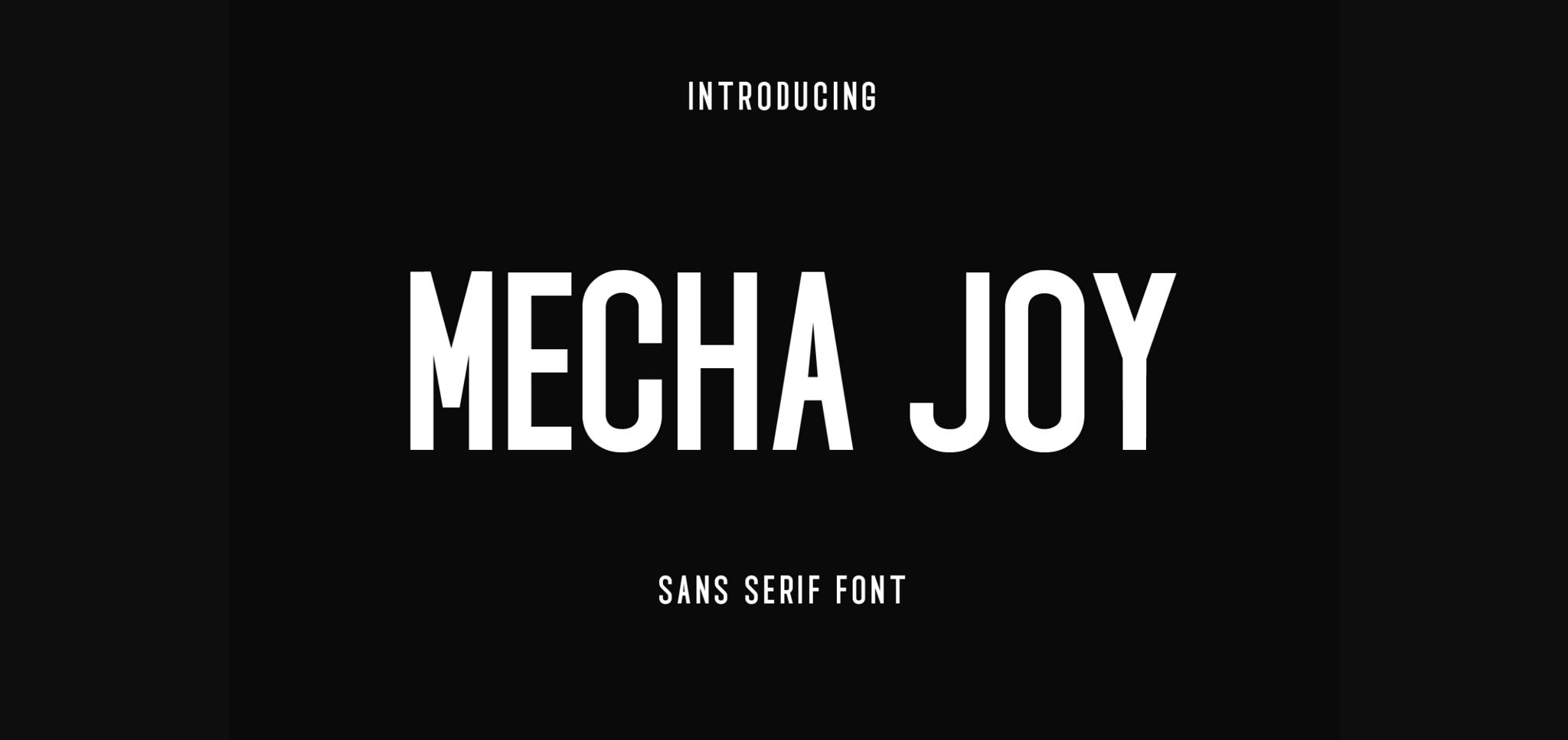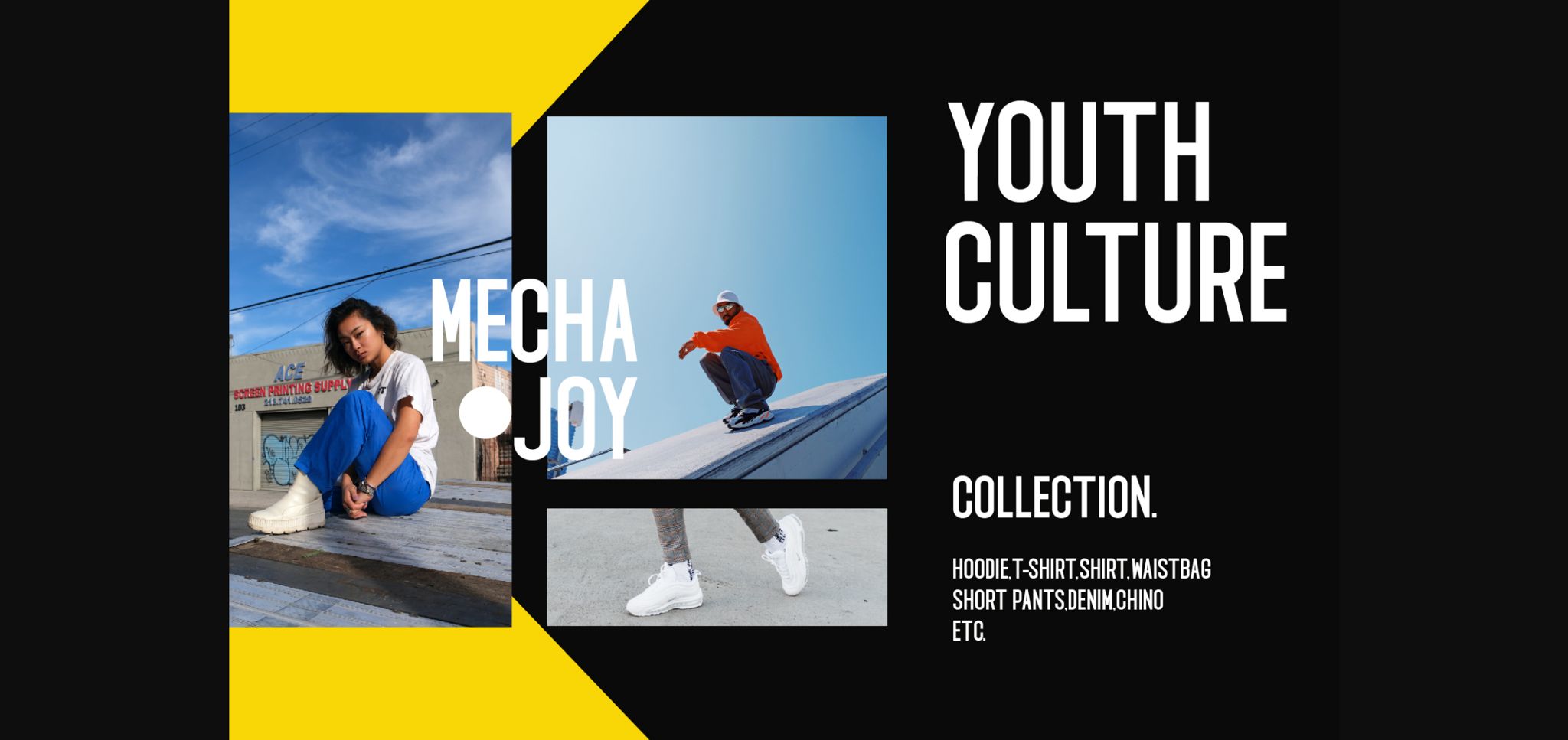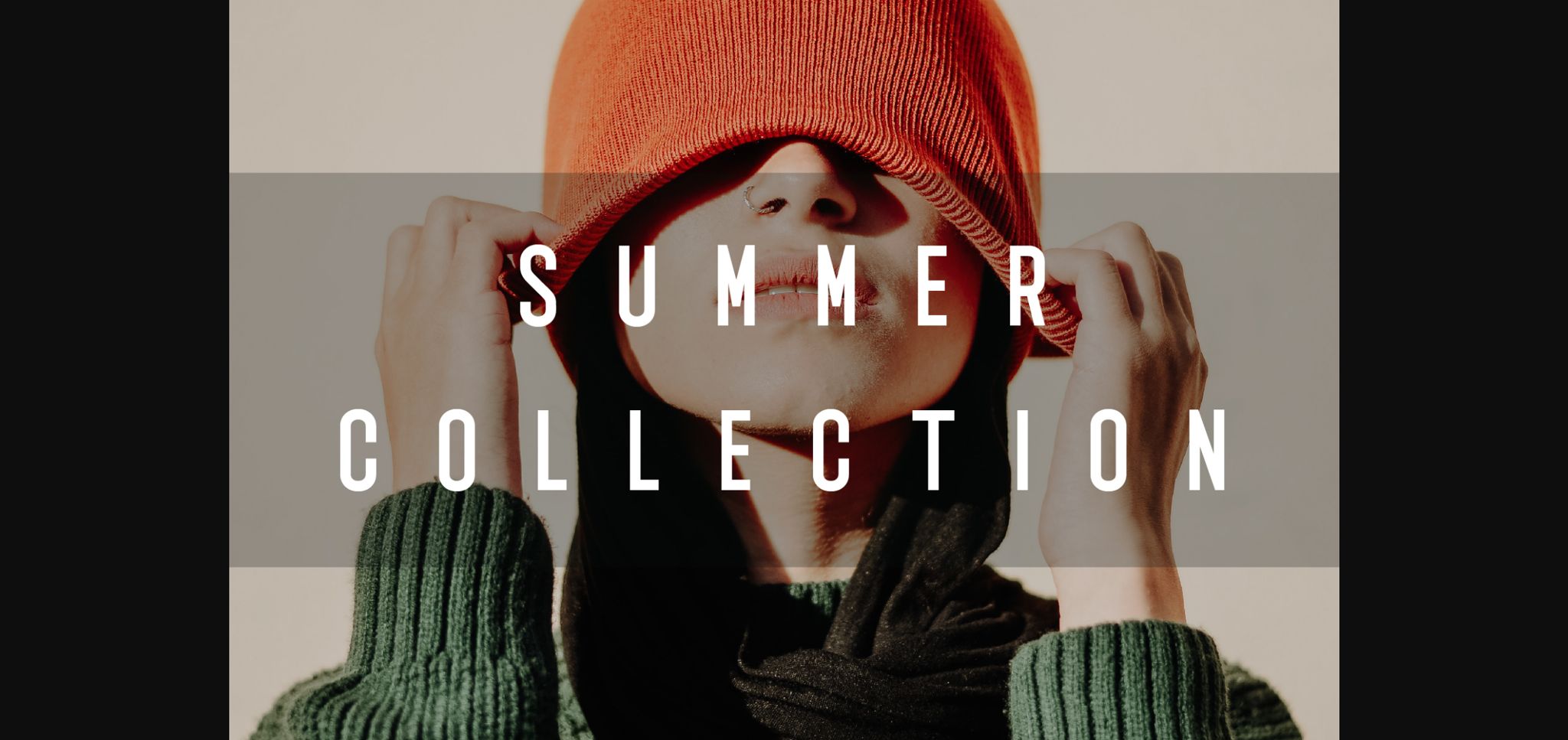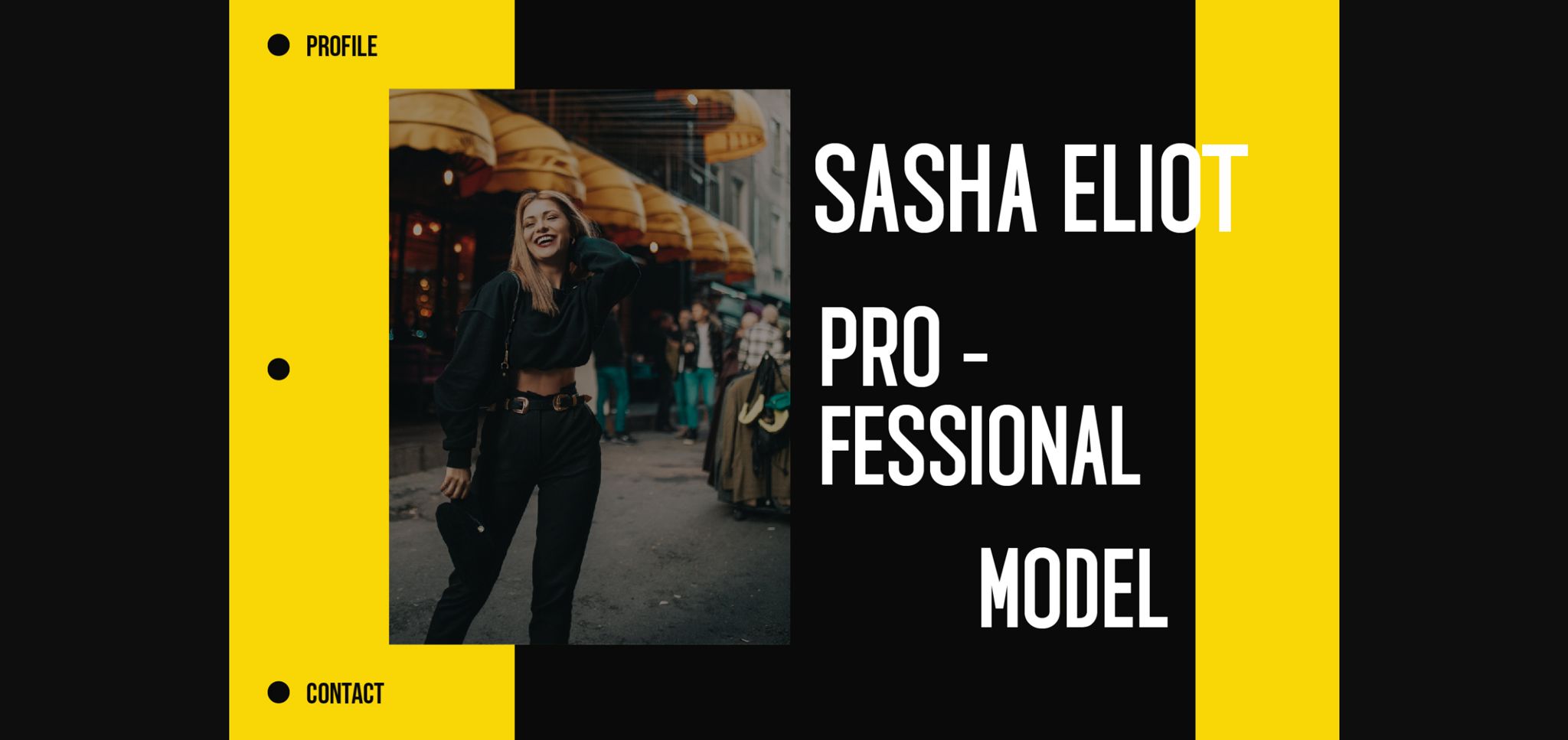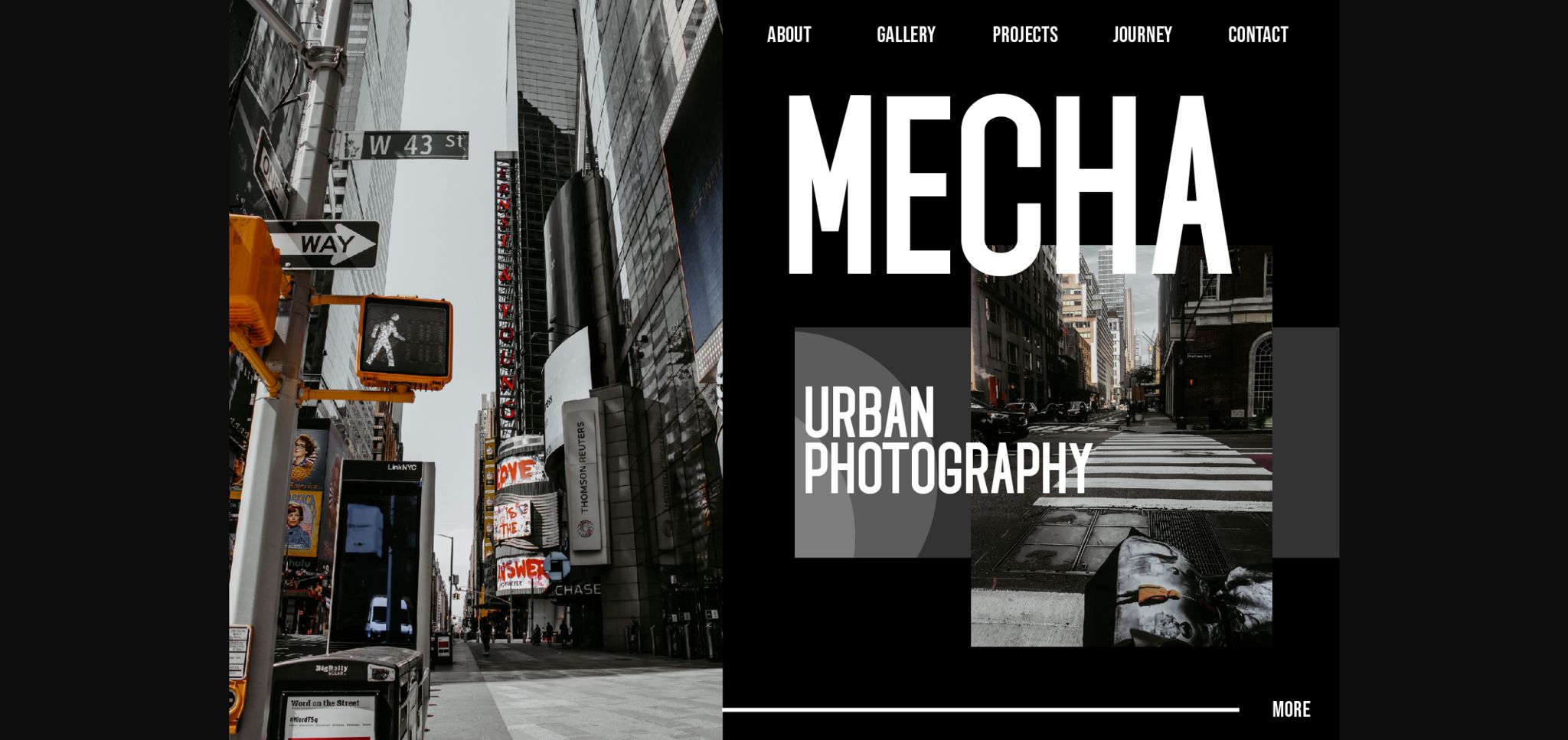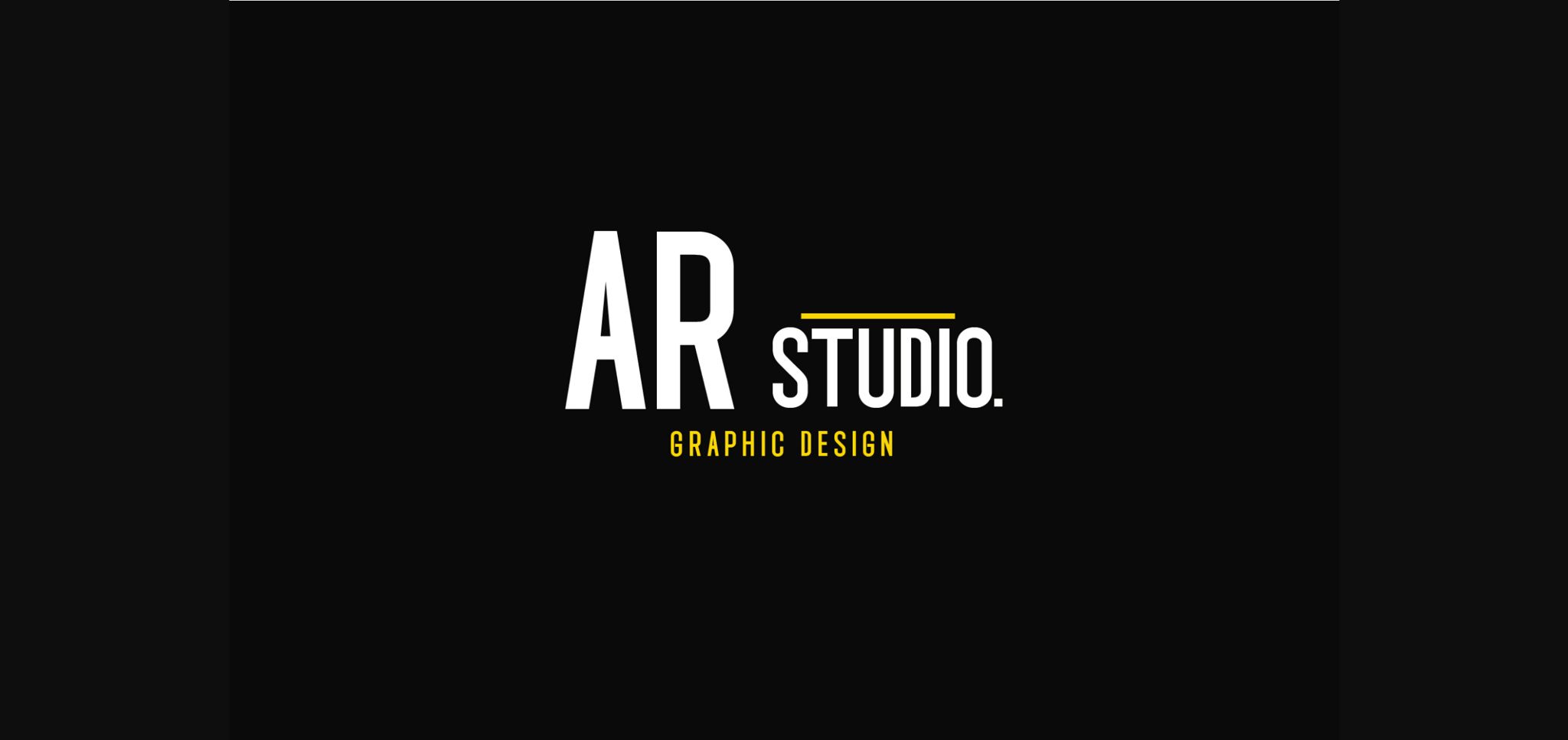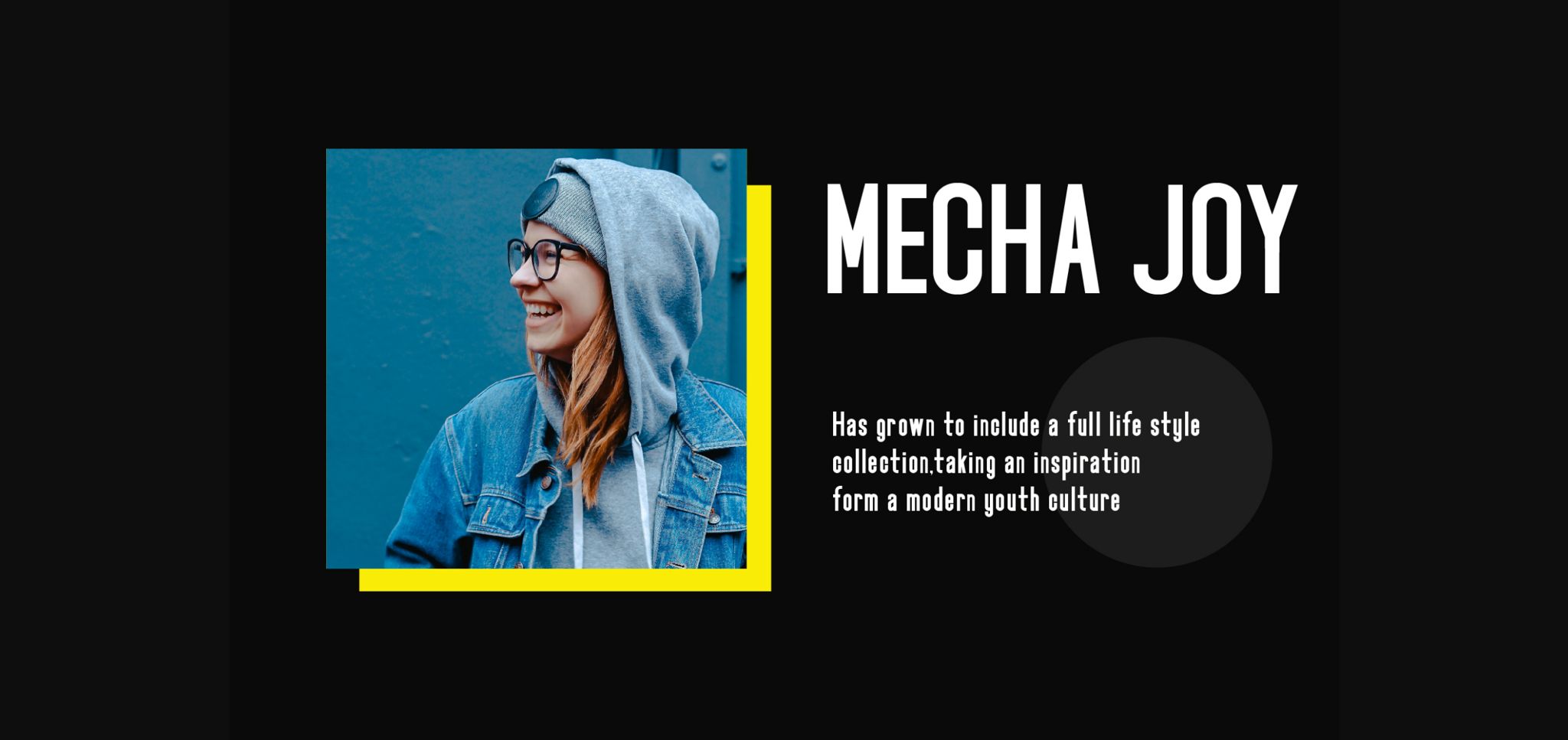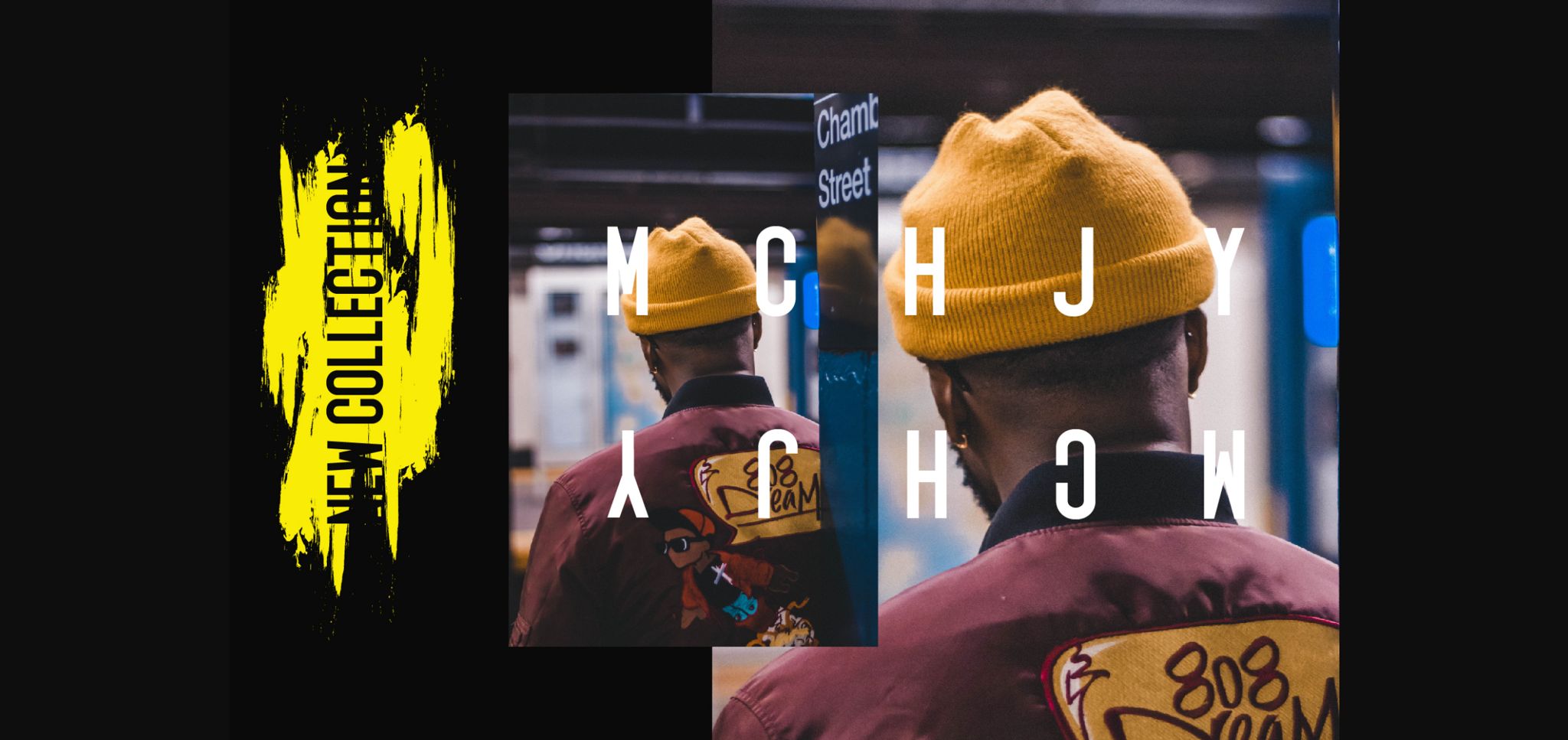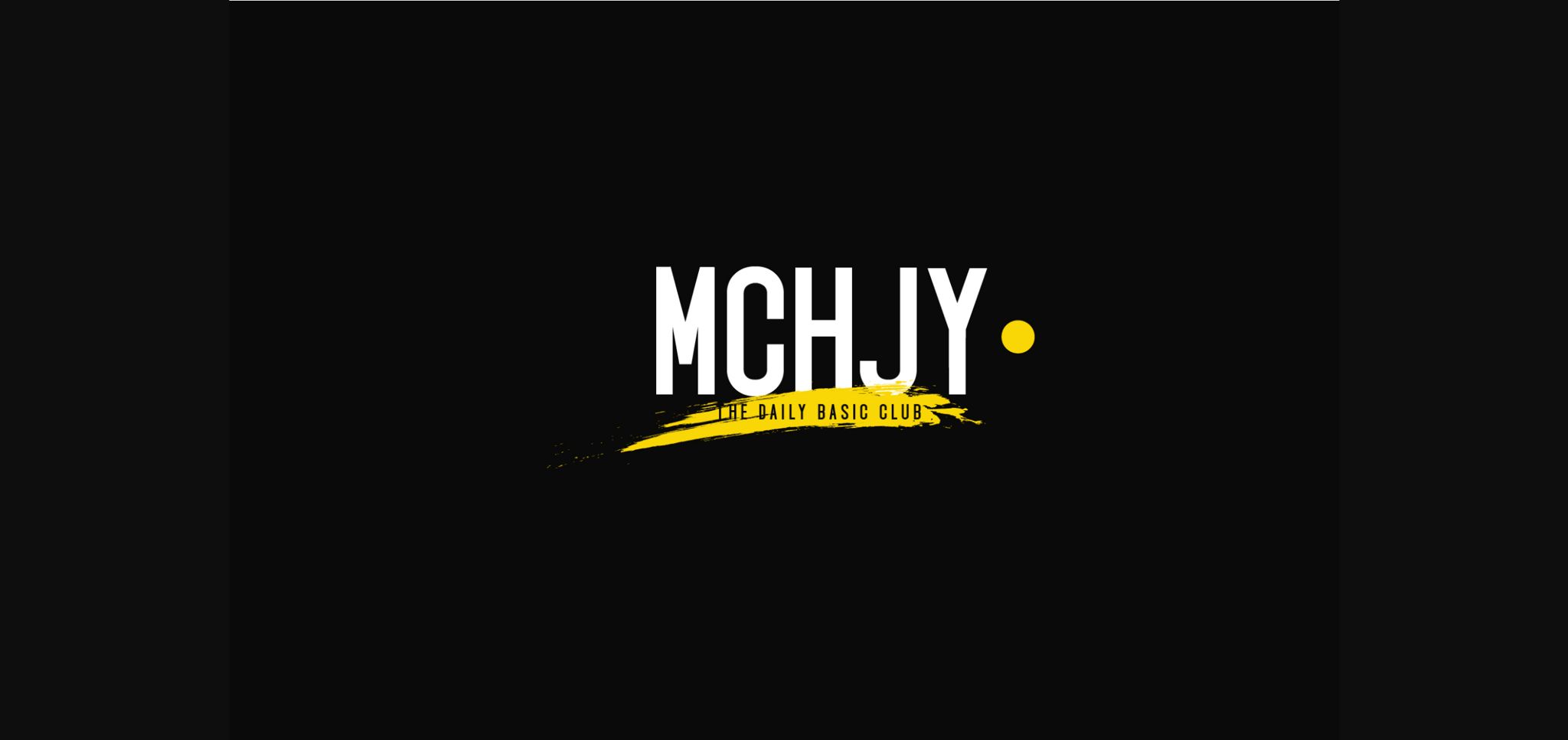
Mecha Joy Font
About Mecha Joy Font
Mecha Joy presents itself as a straightforward and tidy lettered sans serif font, characterized by its simplicity and versatility. With its adaptable style, Mecha Joy seamlessly integrates into a diverse array of designs, making it a go-to font for any occasion.
The charm of Mecha Joy lies in its simplicity and ease of use. Whether you’re crafting logos, designing invitations, or developing social media graphics, this font’s versatile style adds a touch of elegance to your projects. Its clean lines and balanced proportions ensure clarity and readability, making it suitable for a wide variety of applications.
One of Mecha Joy’s key strengths is its versatility across different design contexts. Whether you’re working on digital interfaces, print materials, or branding campaigns, Mecha Joy effortlessly blends into various design environments, maintaining consistency and coherence throughout your creative endeavors.
Moreover, Mecha Joy’s neat lettered sans serif design allows for creative flexibility and expression. Whether used for headlines or body text, Mecha Joy brings a sense of refinement and sophistication to your designs, helping them to stand out and leave a lasting impression.
Incorporating Mecha Joy into your creative projects is sure to elevate their aesthetic appeal and captivate your audience’s attention. Whether you’re a seasoned designer or an amateur creator, Mecha Joy offers a versatile and stylish solution for bringing your vision to life with confidence and flair.
In summary, Mecha Joy is more than just a font; it’s a versatile design asset that empowers you to create visually stunning and impactful projects. With its simple and neat lettered sans serif design, Mecha Joy adds a touch of elegance to any design endeavor. Embrace Mecha Joy as your go-to font and discover how it enhances your creative projects with effortless style and sophistication.
Mecha Joy’s versatility and simplicity make it a reliable choice for a wide range of design projects. Whether it’s logos, invitations, or social media graphics, this font effortlessly adds elegance. Embrace Mecha Joy as your favorite go-to font and elevate your designs with its stylish and adaptable charm, ensuring they stand out on any occasion.